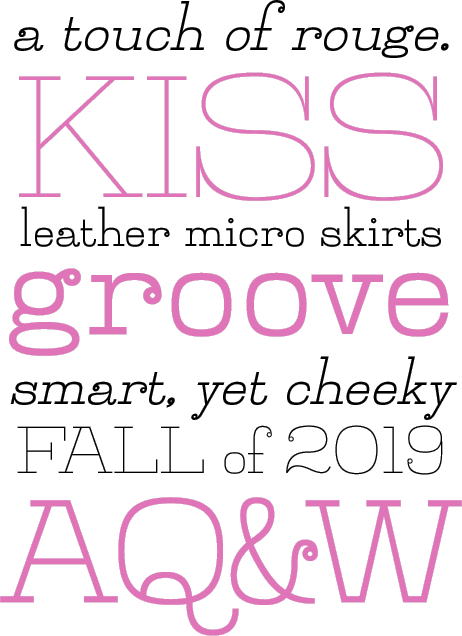
jillsville
Jillsville is a sweet, delicate font with a fine lines and feminine overtones. She’s light and lithe, but “she ain’t no wallflower.” Reminiscent of a typewriter font, but proportionally spaced, Jillsville is ideal for oversized headlines and photographic overlays where a heavier font would look obese.